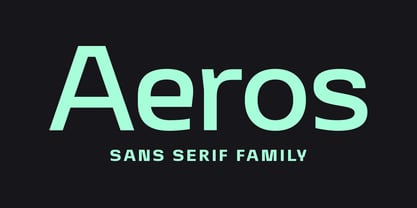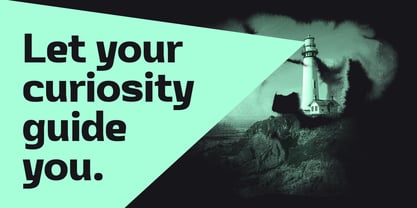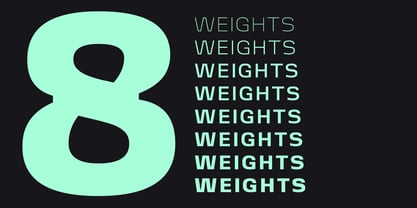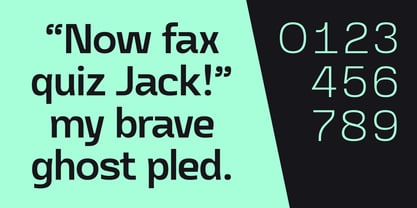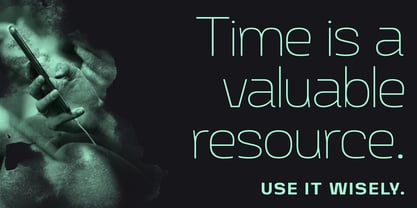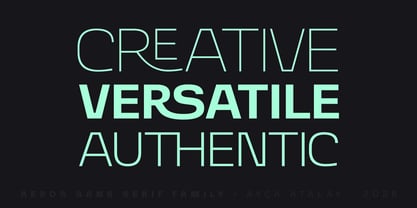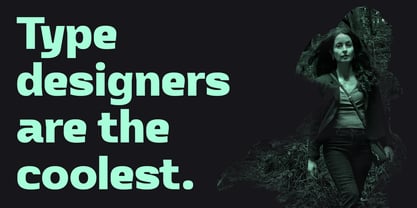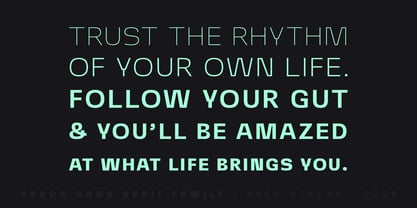
Aeros
La familia tipográfica Aeros fue diseñada por Ayça Atalay y publicada por Ayca Atalay. Aeros contiene 7 estilos y opciones de paquete familiar. Más información sobre esta familia
Aeros is a modern workhorse sans serif typeface that combines strength and reliability with versatility. Available in 8 weights ranging from thin to black, it strikes the perfect balance in the Goldilocks zone: neutral yet engaging, visually appealing without being overpowering.
This typeface features a set of discretionary ligatures, adding a creative flair when desired. It is ideal for various applications such as branding, packaging, and user interfaces.
Features
• Standard Characters
• Numerals & Fractions
• Comprehensive Set of Punctuation Marks
• Standard & Discretionary Ligatures
• 8 Weights (Thin to Black)
• Multilingual